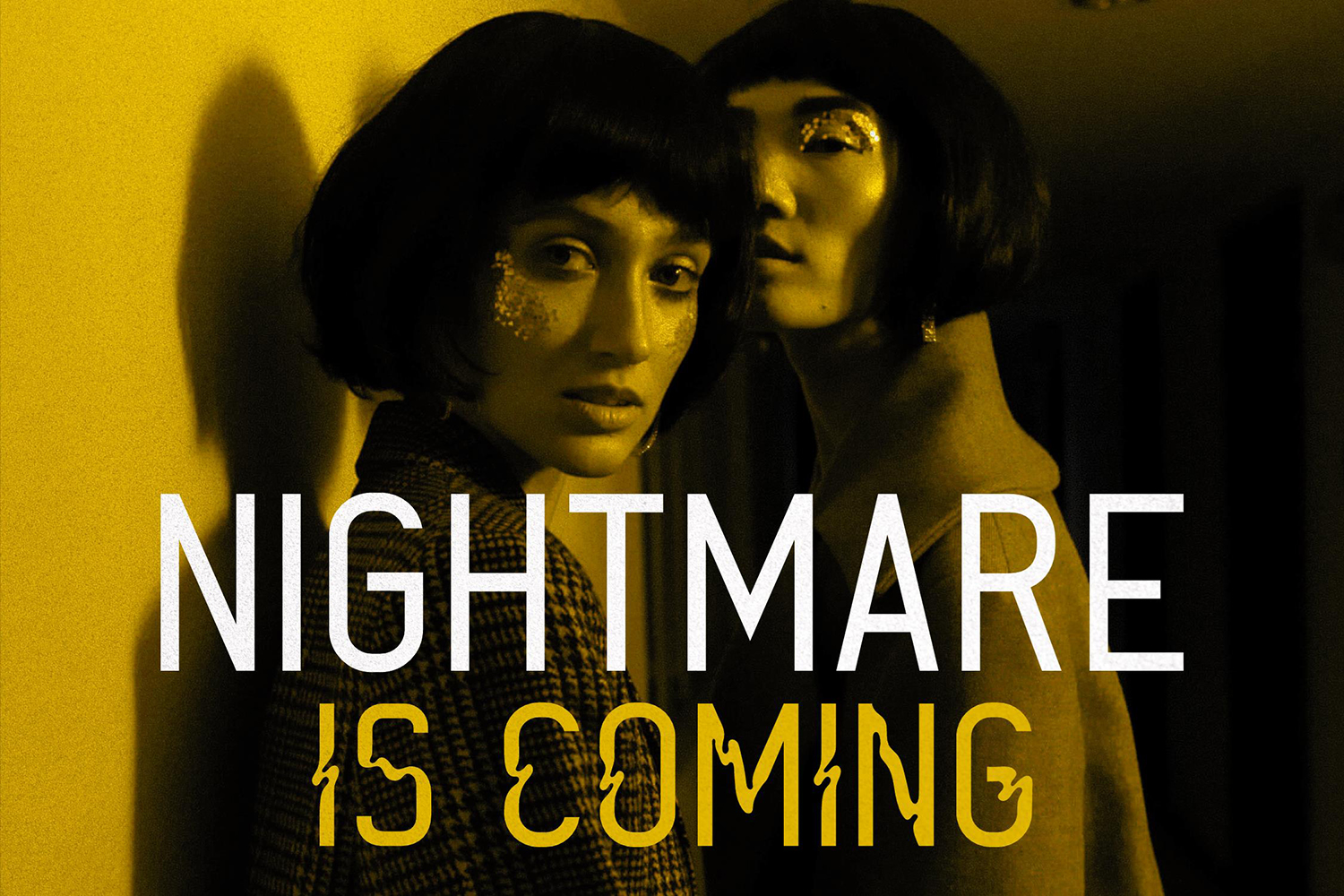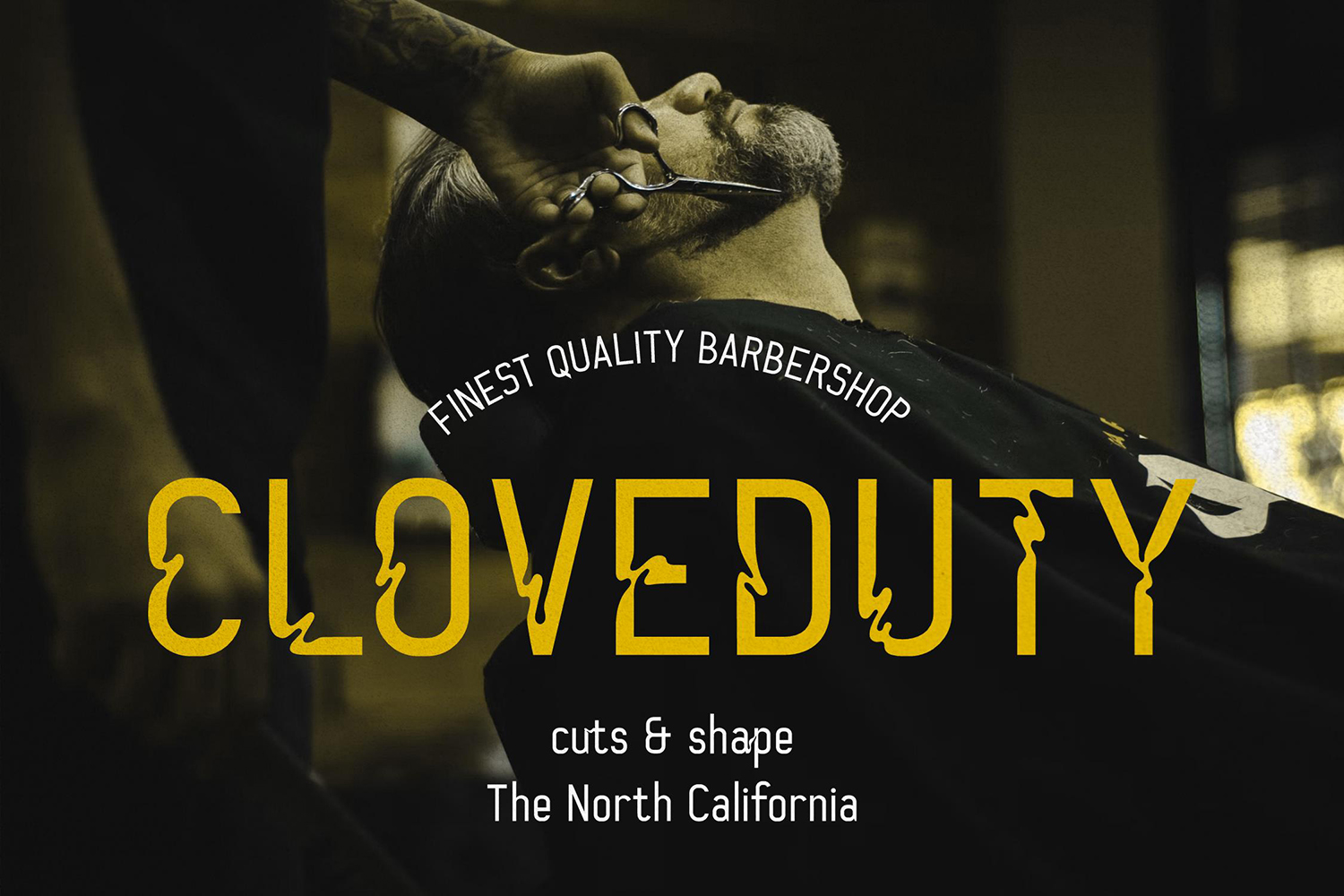
Mandors Free Font
Mandors Free Font is a modern and stylish sans serif typeface that has its own unique look. This font is perfect for elegant and luxurious logos, book titles, fashion branding, magazines, clothes, and so much more.